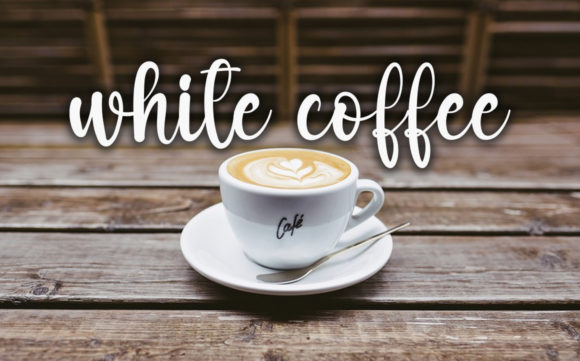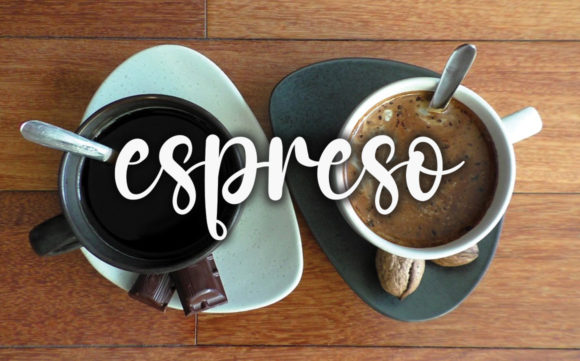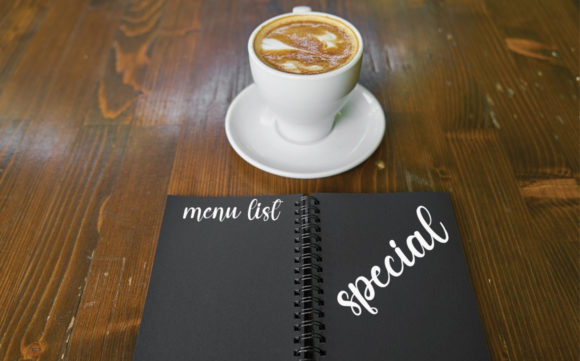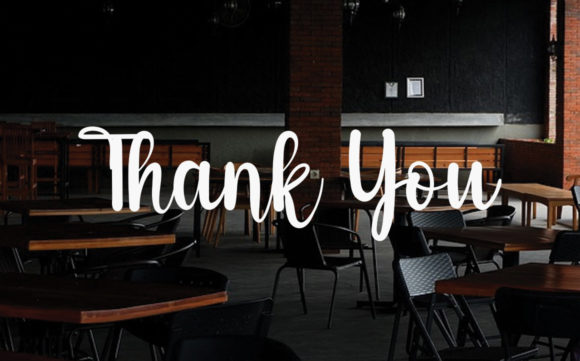
Introducing Black Latte Font: Elevate Your Designs with Elegance and Sophistication
Are you a designer or crafter looking for a font that exudes elegance and sophistication? Look no further than the Black Latte Font. This beautiful and flowing handwritten font is perfect for a wide range of projects, from wall displays and wedding invitations to social media posts and product packaging.
What Makes Black Latte Font So Special?
Black Latte Font is a unique and stylish font that is sure to make your designs stand out. Its flowing script and elegant lines make it perfect for projects that require a touch of sophistication and glamour. Whether you’re creating a wedding invitation, a logo, or a social media post, Black Latte Font is the perfect choice.
Uses for Black Latte Font
Black Latte Font is incredibly versatile and can be used for a wide range of projects, including:
- Wall displays: Create stunning wall displays with Black Latte Font that are sure to grab attention.
- Wedding invitations: Make your wedding invitations truly special with this beautiful font.
- Social media posts: Elevate your social media posts with elegant and sophisticated typography.
- Logos: Create a lasting impression with a logo that features Black Latte Font.
- Advertisements: Make your advertisements stand out with this unique and stylish font.
- Product packaging: Add a touch of elegance to your product packaging with Black Latte Font.
- Product designs: Create stunning product designs that feature this beautiful font.
- Labels: Make your labels truly special with Black Latte Font.
- Photography: Add a touch of sophistication to your photography with this elegant font.
- Watermarks: Protect your images with a watermark that features Black Latte Font.
- Invitations: Create stunning invitations for any occasion with this beautiful font.
- Stationery: Elevate your stationery with elegant and sophisticated typography.
Why Choose Black Latte Font?
There are many reasons why Black Latte Font is the perfect choice for your design projects. Here are just a few:
- Elegant and sophisticated: Black Latte Font is the perfect choice for projects that require a touch of elegance and sophistication.
- Unique and stylish: This font is sure to make your designs stand out with its unique and stylish script.
- Versatile: Black Latte Font can be used for a wide range of projects, from wall displays to social media posts.
Tips for Using Black Latte Font
Here are a few tips for using Black Latte Font in your design projects:
- Pair it with other fonts: Black Latte Font pairs well with a variety of other fonts, so don’t be afraid to experiment.
- Use it sparingly: While Black Latte Font is beautiful, it can be overwhelming if used too much. Use it sparingly to create a lasting impression.
- Experiment with colors: Black Latte Font looks great in a variety of colors, so don’t be afraid to experiment.